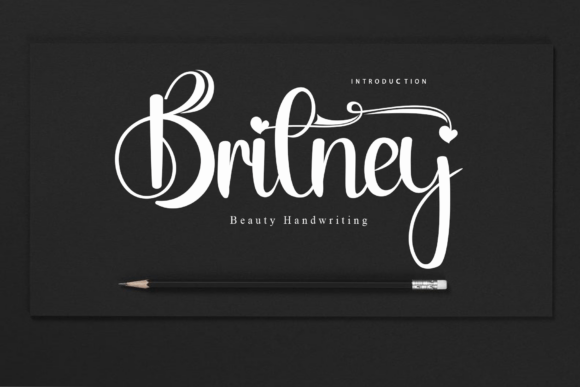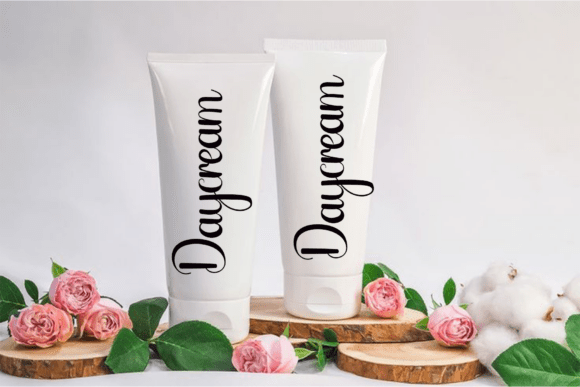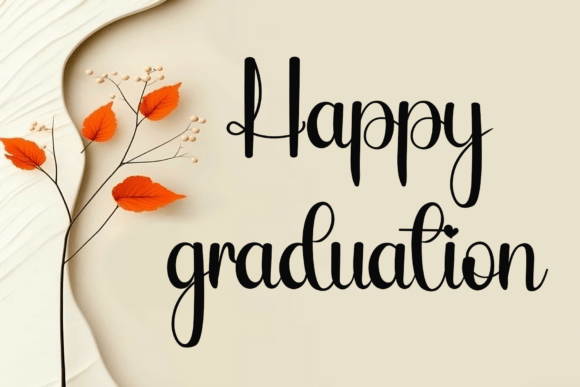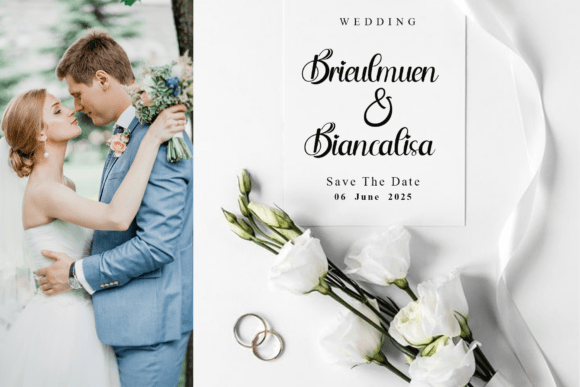
Britney Font: Elegant Handwritten Script for Feminine Branding
About the Britney Font
The Britney Font is here to transform your projects with its distinctive character and style. Britney is a trendy handwritten font with a contemporary atmosphere and impeccable form, inspired by timeless classic calligraphy. It will add elegance and class to any of your design projects.
Britney’s elegant, yet modern feel makes it ideal for headlines, short-form text in logos and branding materials, and even select packaging applications where a touch of sophistication is desired. It shines in projects requiring a sense of handwritten authenticity but with refined clarity. Avoid using Britney for body text or lengthy paragraphs; its stylish informality isn’t suited to extended readability.
Its inherent personality is best described as sophisticated yet approachable. To enhance this, pair Britney with a clean sans-serif like Open Sans for a balanced contrast, or a classic serif such as Garamond for a more traditional feel. For a bolder statement, consider a geometric sans-serif like Futura.
These pairings will provide the necessary structure and legibility to complement Britney’s flowing script, creating visually harmonious designs.
Britney Font Usage Examples
Britney Font Example